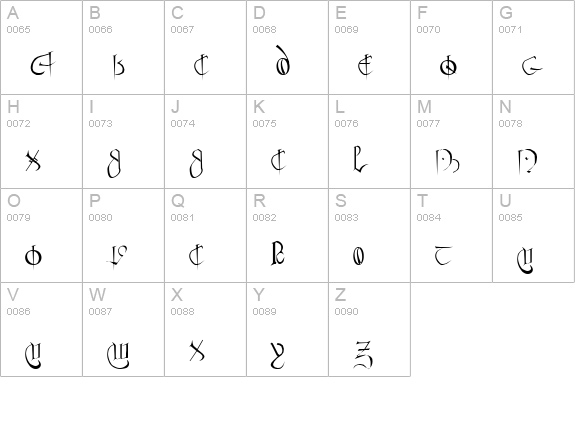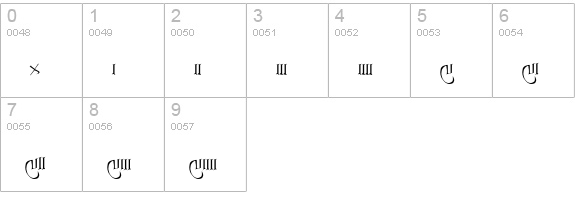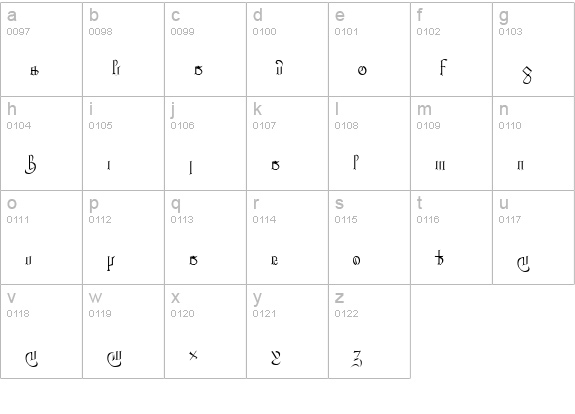
Courthand Regular Font Details
Courthand Regular is the standard, neutral variant in the Courthand typeface family \xE2\x80\x94 well suited to general body text, paragraphs, and standard typographic work.